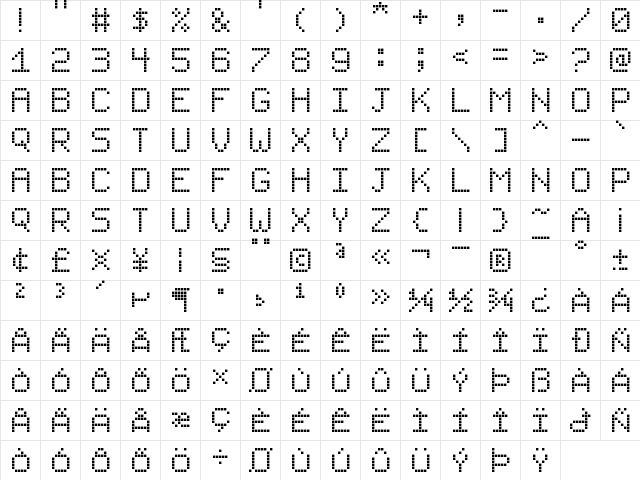
Small LCD Sign Regular
| Designer | Typo2 |
Design Context for Small LCD Sign Typeface
Small LCD Sign takes a measured approach to typography — its balanced proportions and neutral character make it a reliable workhorse for both digital and print work.